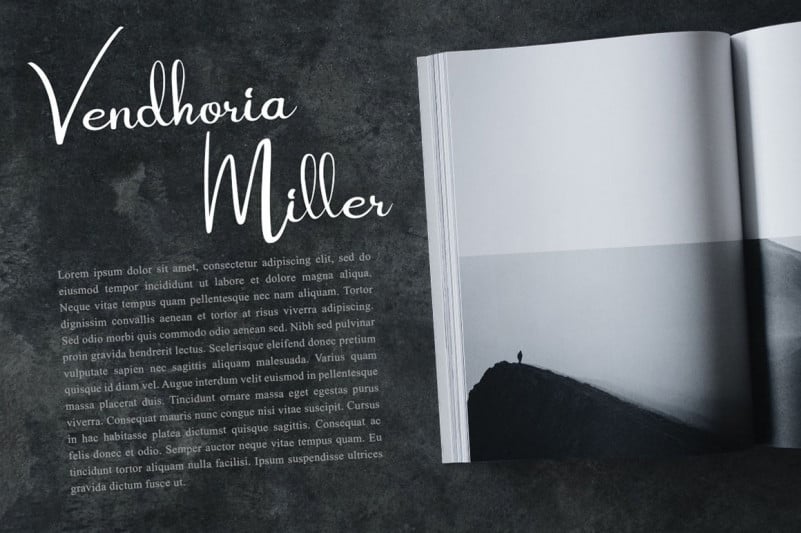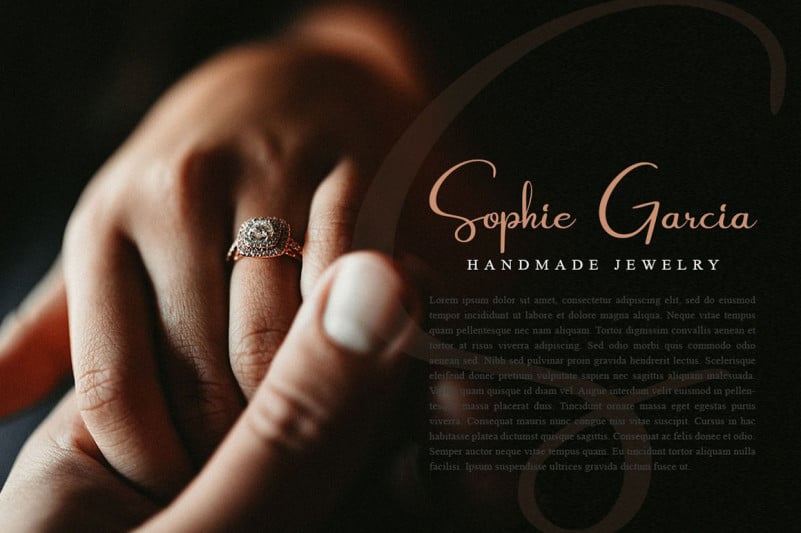
Seminyak Script Font
Seminyak Script Font is a gorgeous and lovely script typeface. This fantastic is best suited for headlines of all sizes, as well as for blocks of text that have both maximum and minimum variations. Whether it’s for web, print, moving images, or anything else – A Sweater Font will look spectacular.